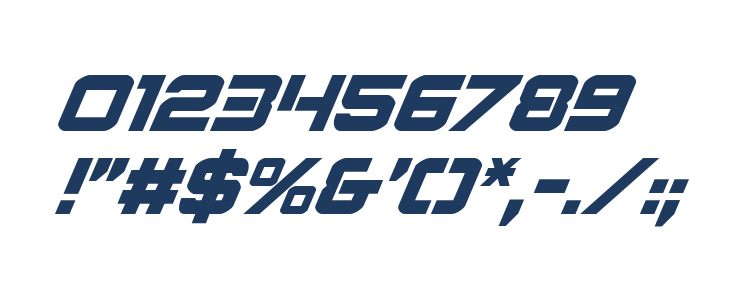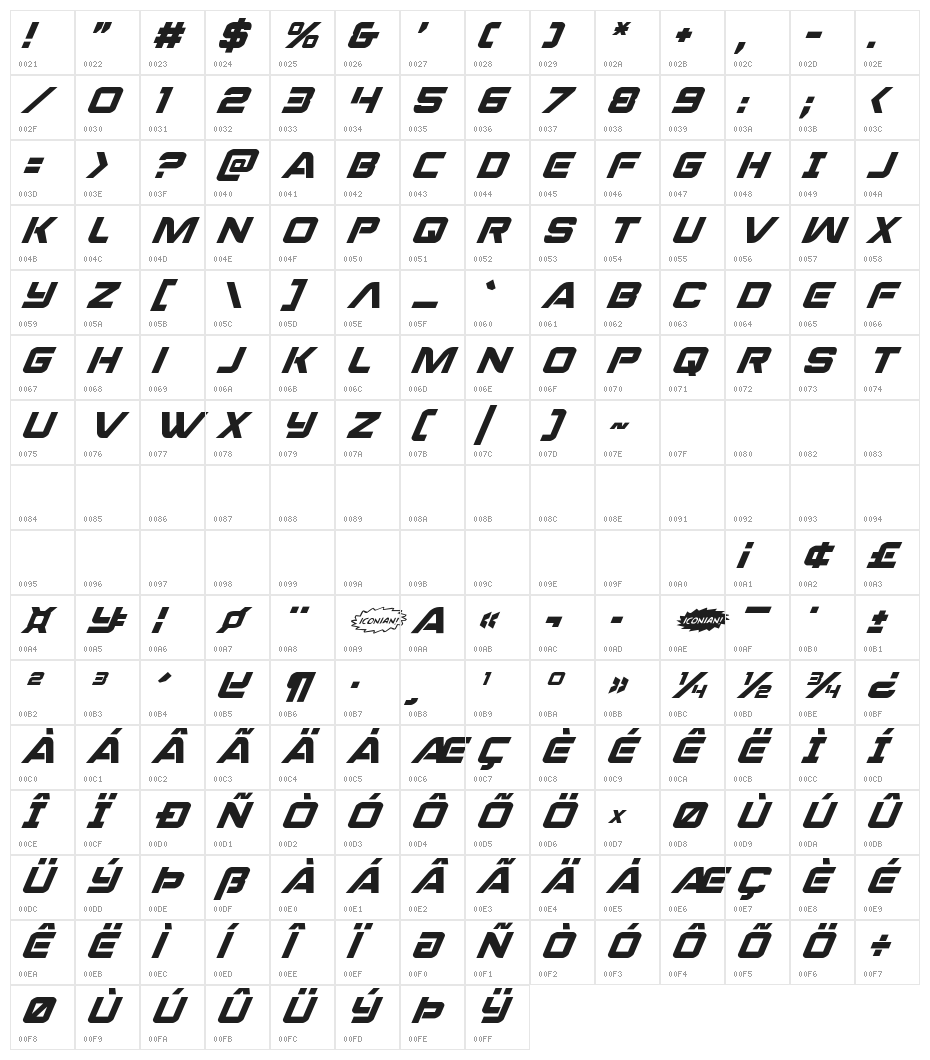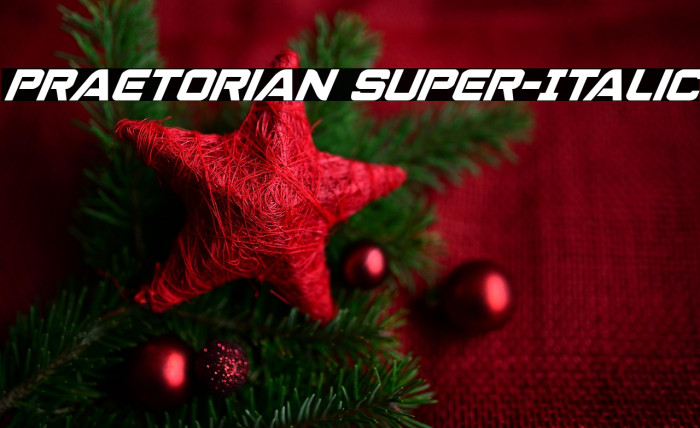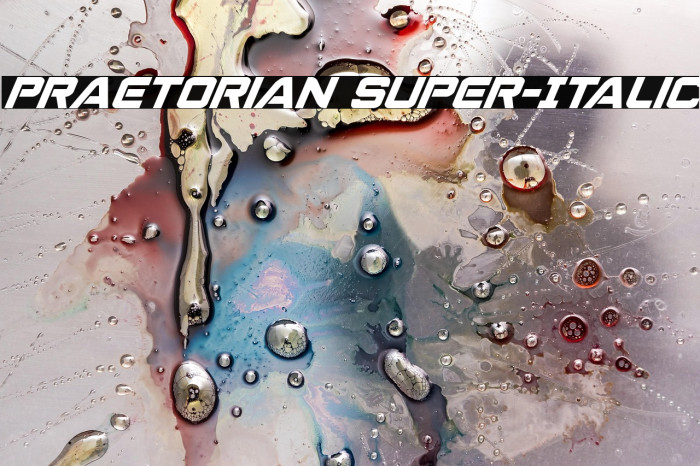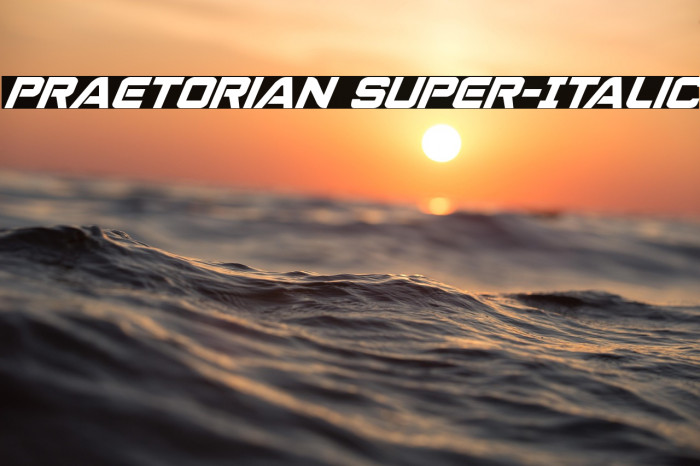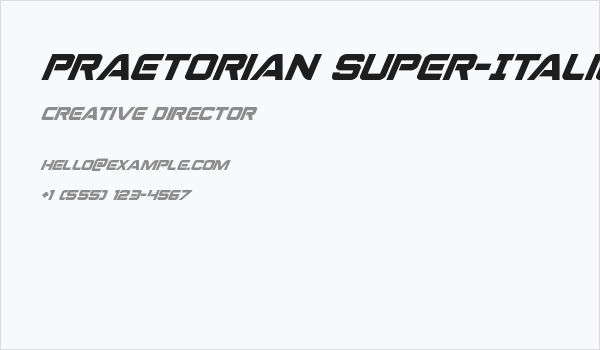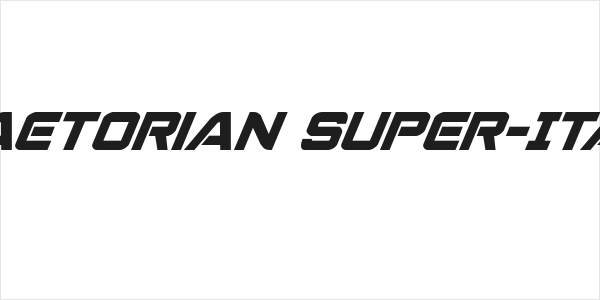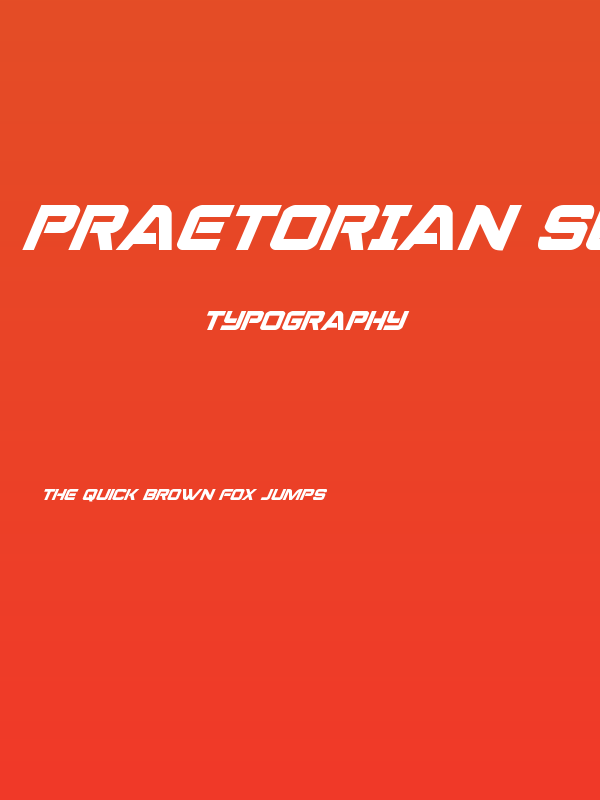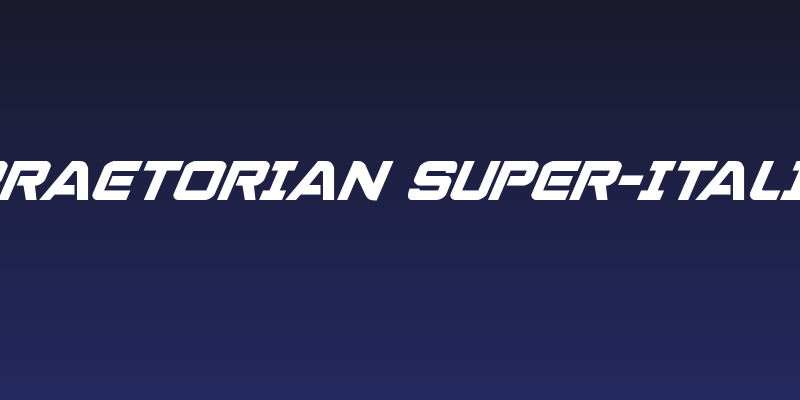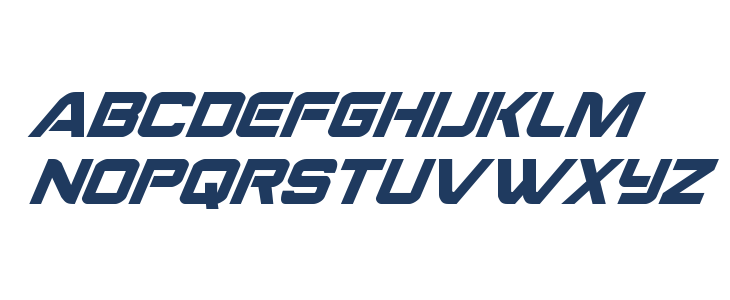
Praetorian Super-Italic Font
Praetorian Super-Italic Description
This font features a bold and dynamic italic style with a strong geometric structure. The characters are sharply angled, giving a sense of motion and speed. The uppercase and lowercase letters maintain a consistent slant, enhancing the italicized effect. The numerals are equally bold, with a uniform height that aligns well with the letters. Special characters are designed to match the overall aesthetic, ensuring a cohesive look across all glyphs. The font's design is modern and assertive, making it suitable for projects that require a strong visual impact.
Use CaseLogos, Headlines
Proposed ProjectsIdeal for sports branding, automotive advertisements, and dynamic logo designs.